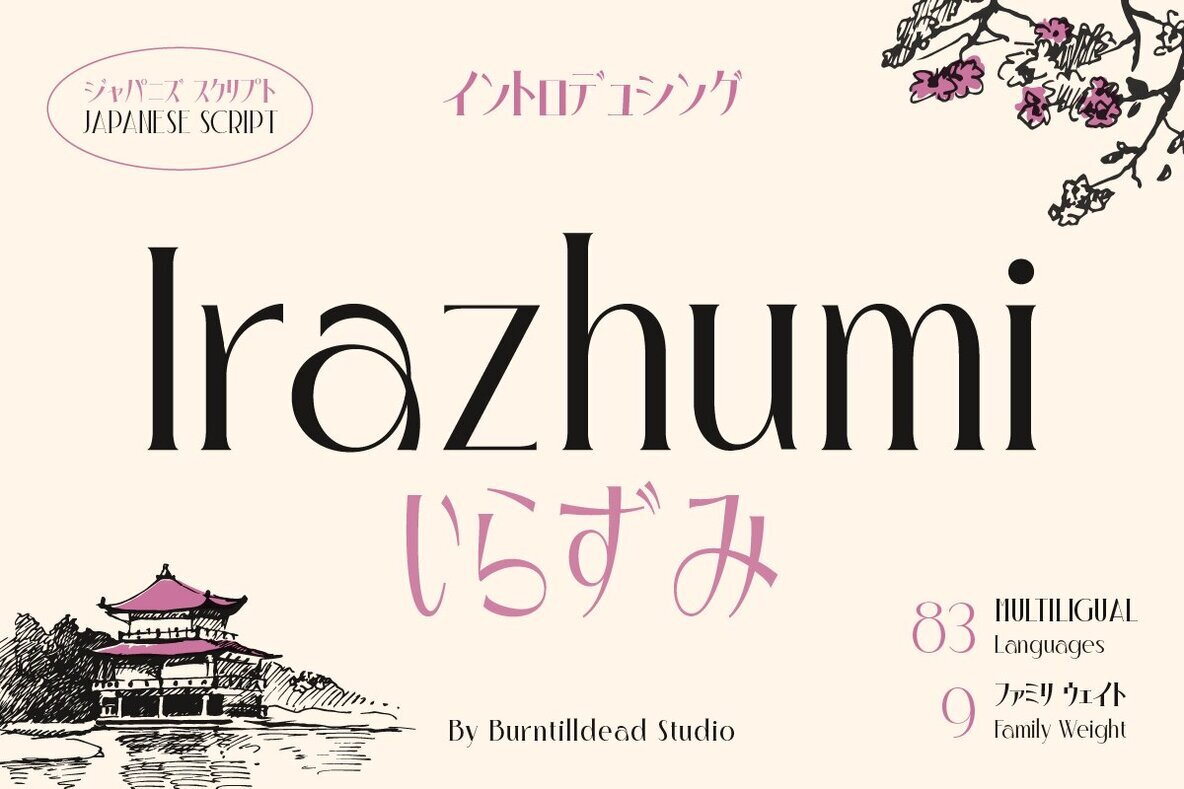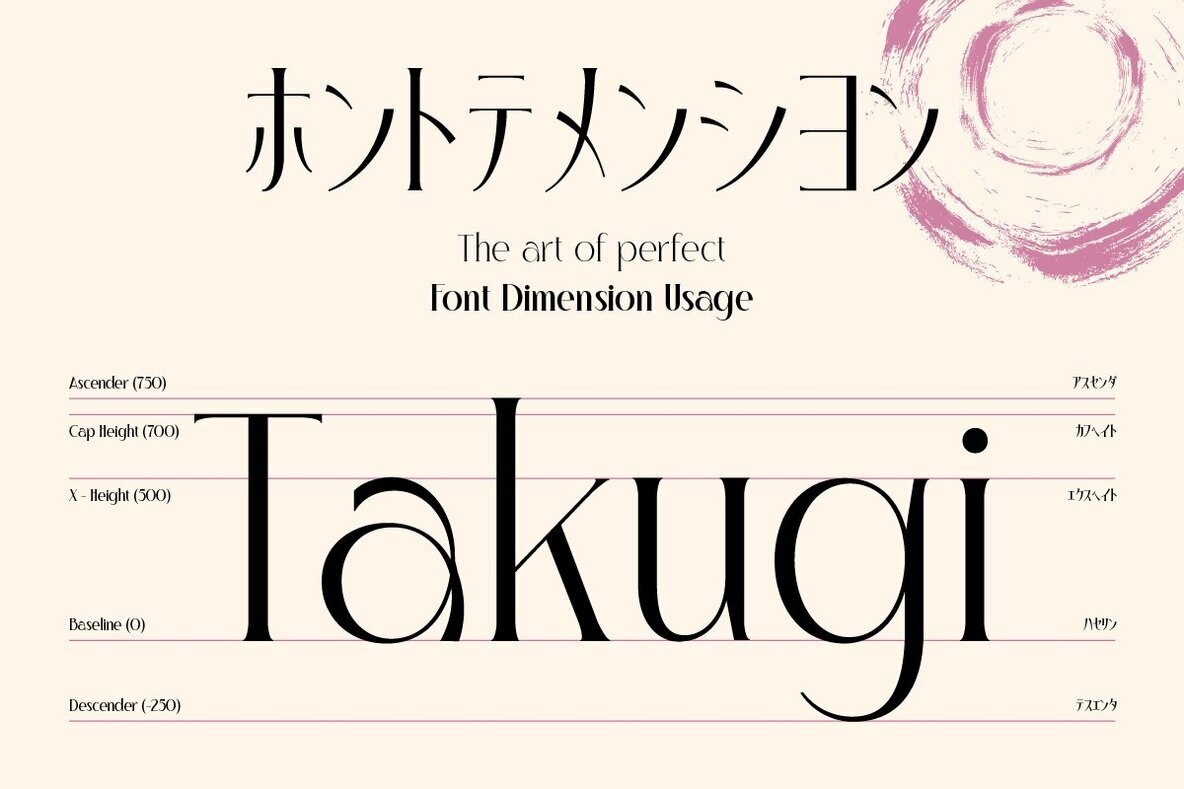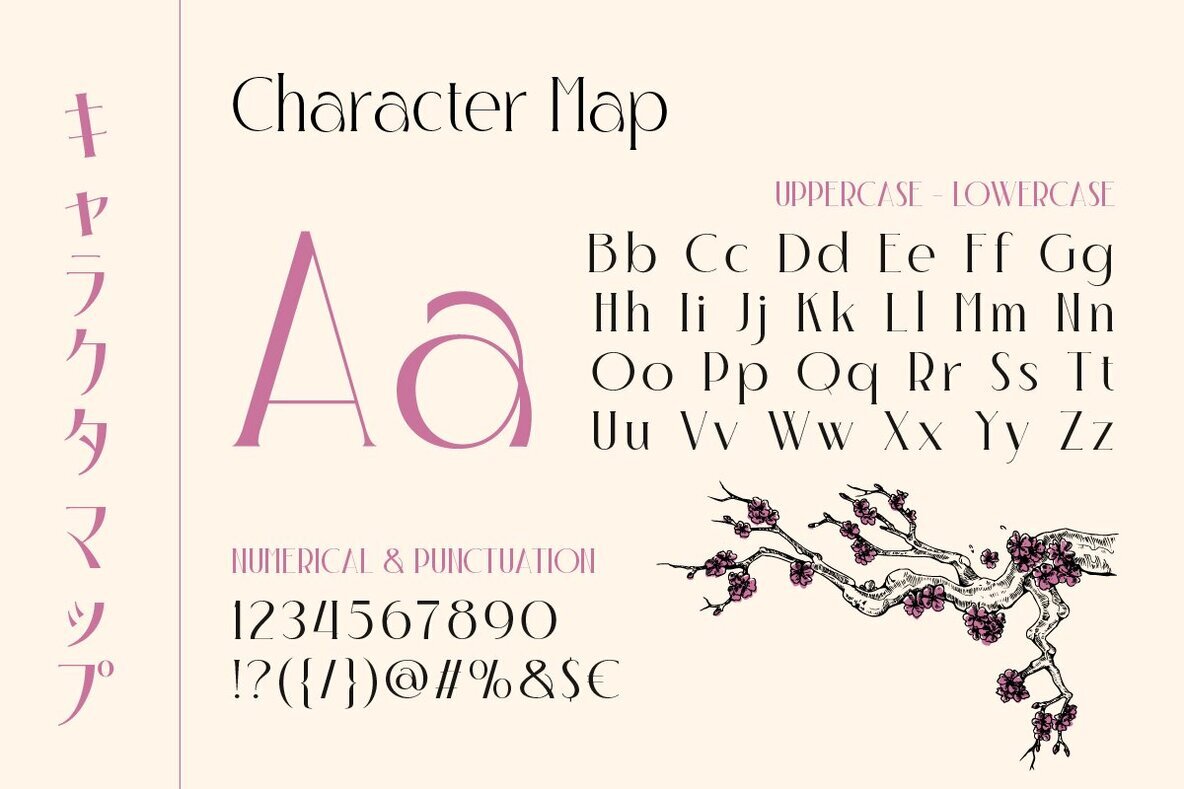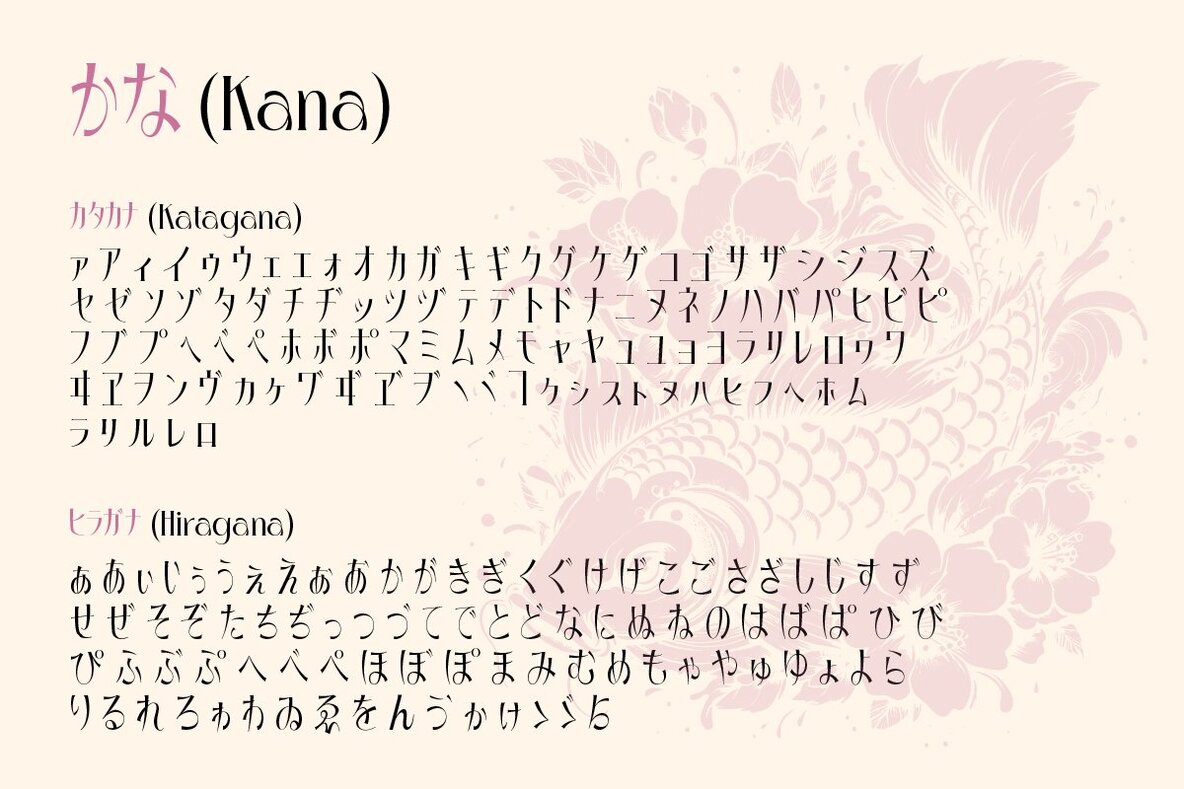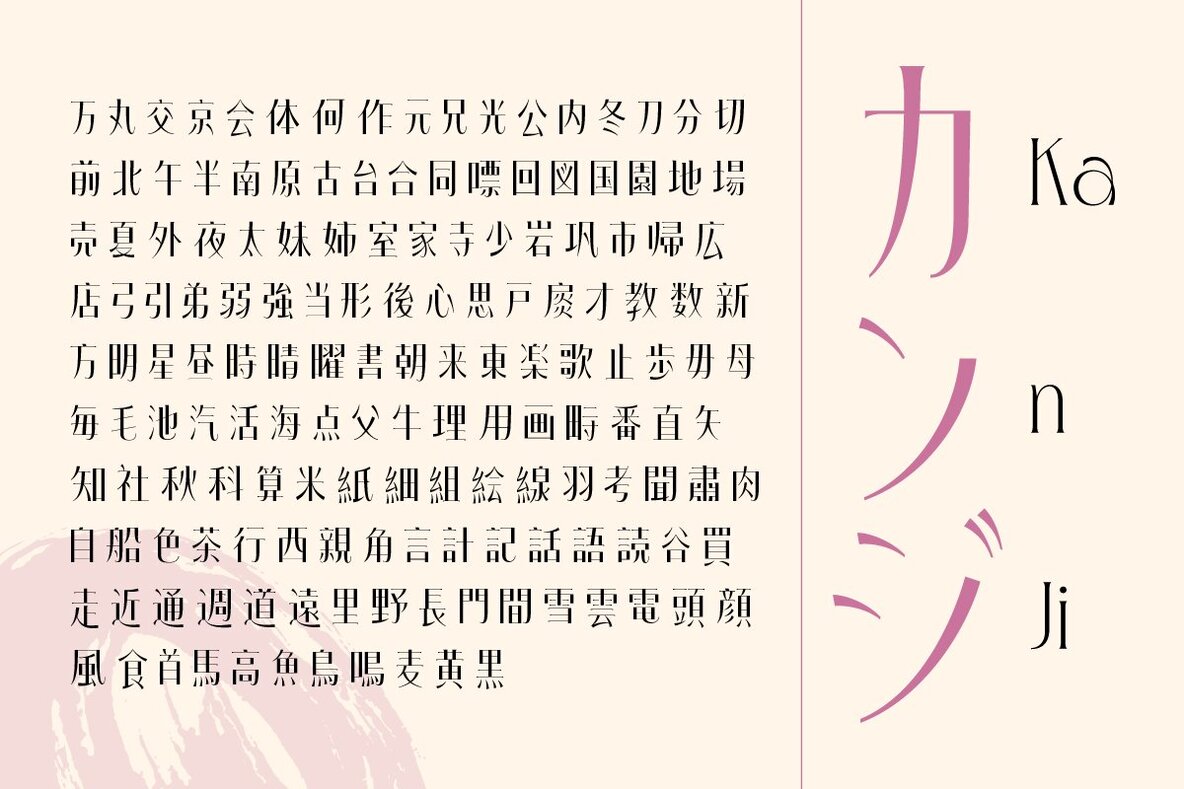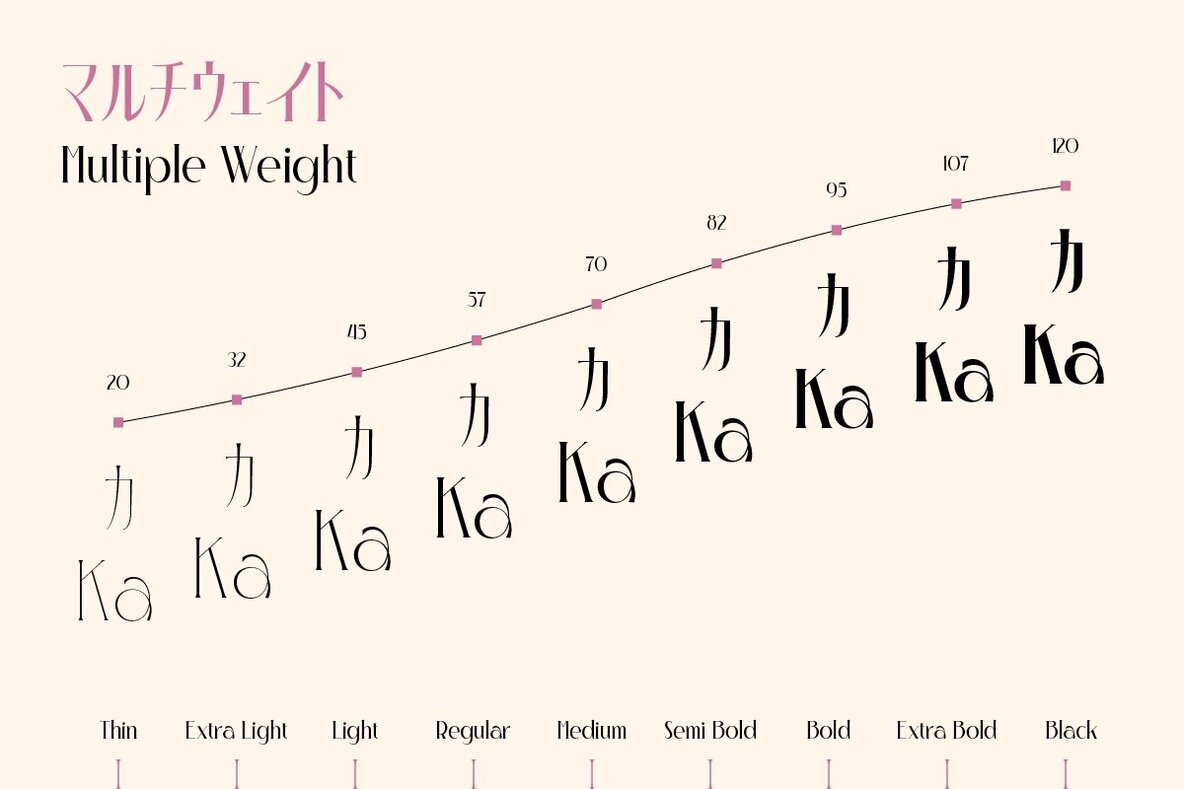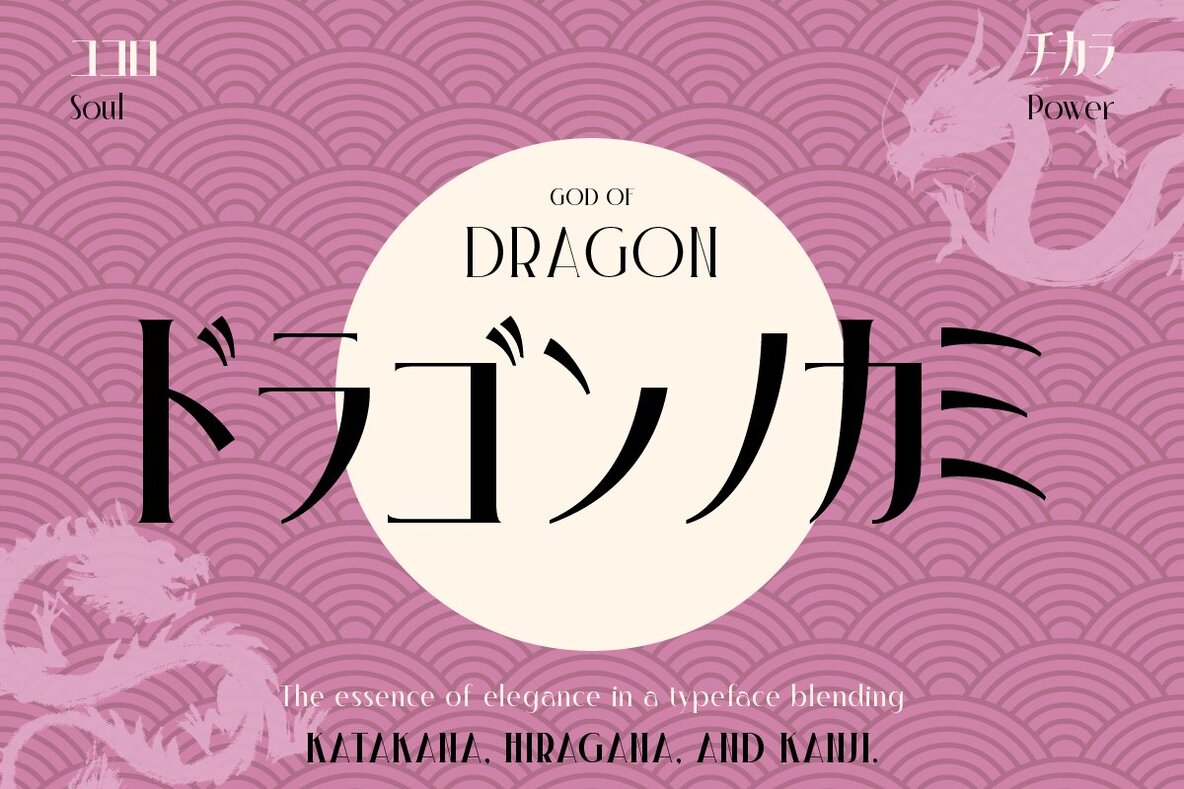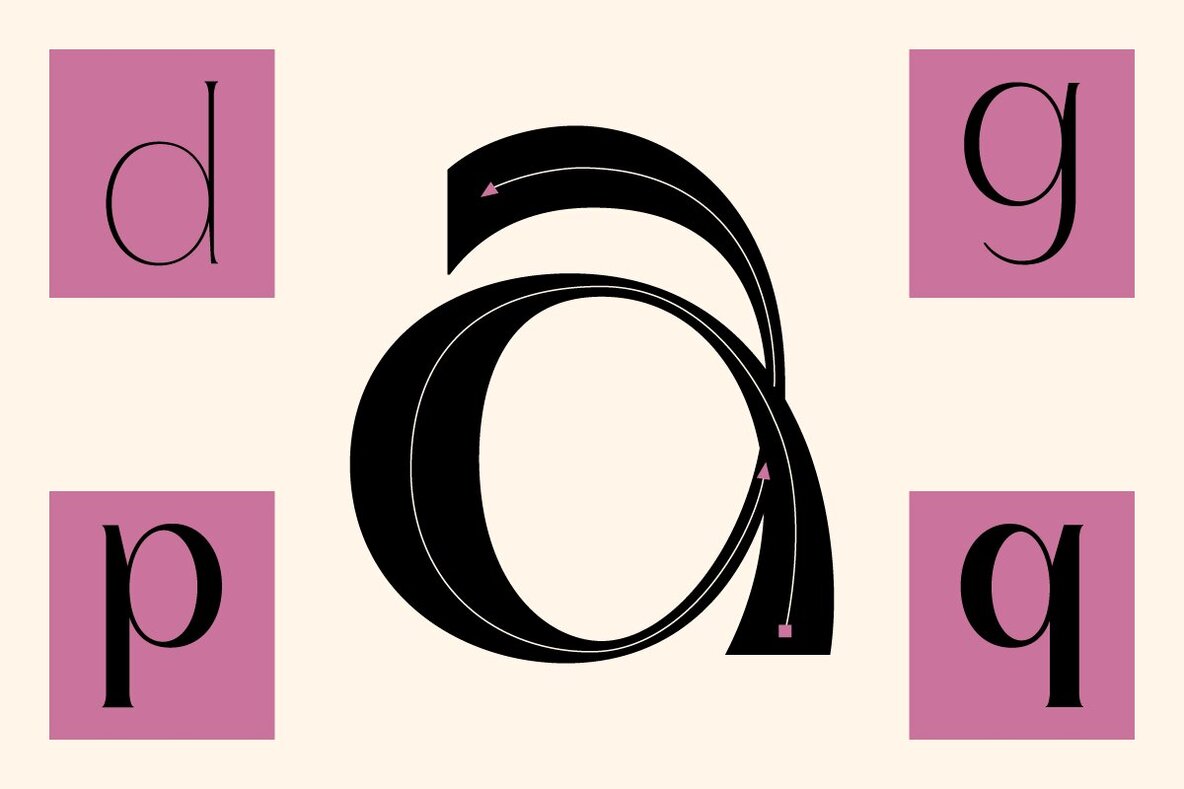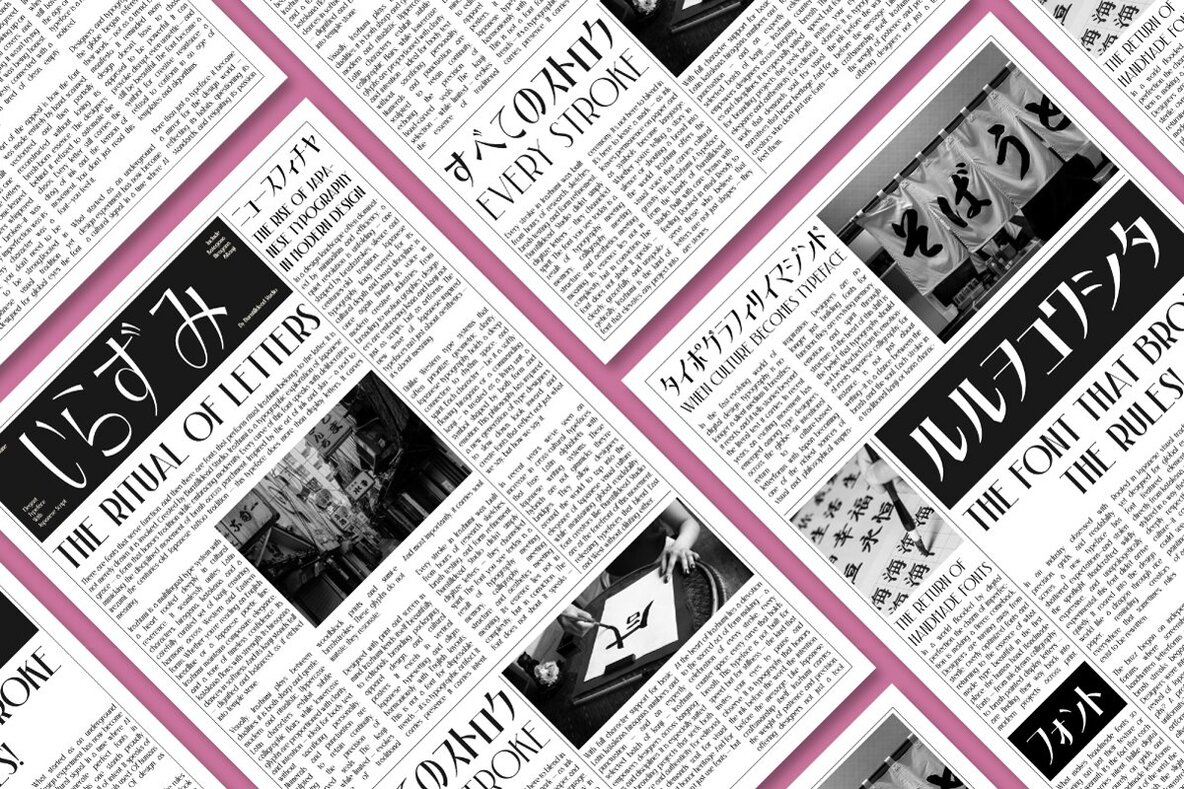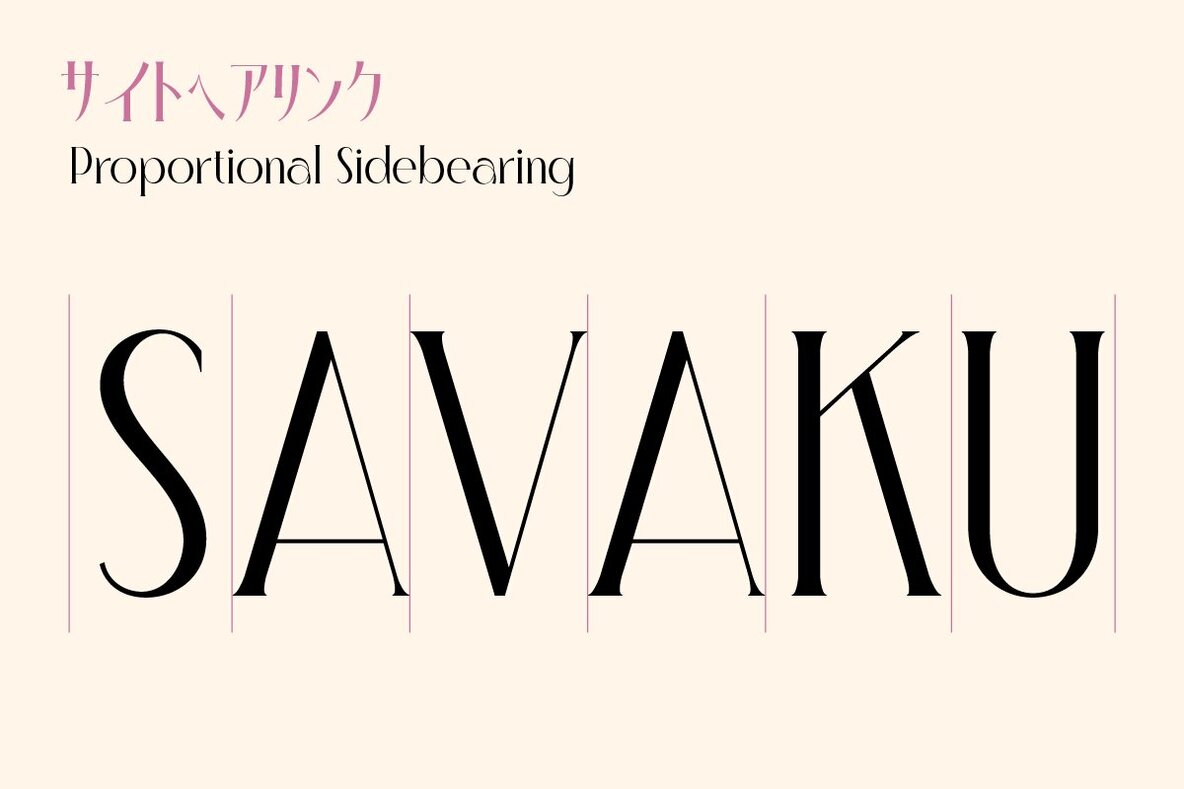
Irazhumi Font
Irazhumi is a distinctive serif typeface, harmonizing modern editorial design with the elegance of Japanese calligraphy. It offers both Latin and comprehensive Japanese scripts, including Hiragana, Katakana, and essential Kanji characters. This fusion presents a versatile asset for multilingual projects. With its tall x-height, sharp contrast, and sculpted curves, Irazhumi conveys elegance and authority. The flowing Japanese strokes impart an organic, poetic rhythm ideal for projects like magazine layouts, luxury product branding, and cultural creative efforts. The typeface comes in nine weights from Thin to Black, enabling dynamic typography for both print and digital applications. Ideal for editorial layouts, magazine headlines, book covers, cultural publications, Japanese branding, packaging, posters, UI displays, and minimalist luxe branding.Irazhumi: Serif Typeface with Japanese Elegance